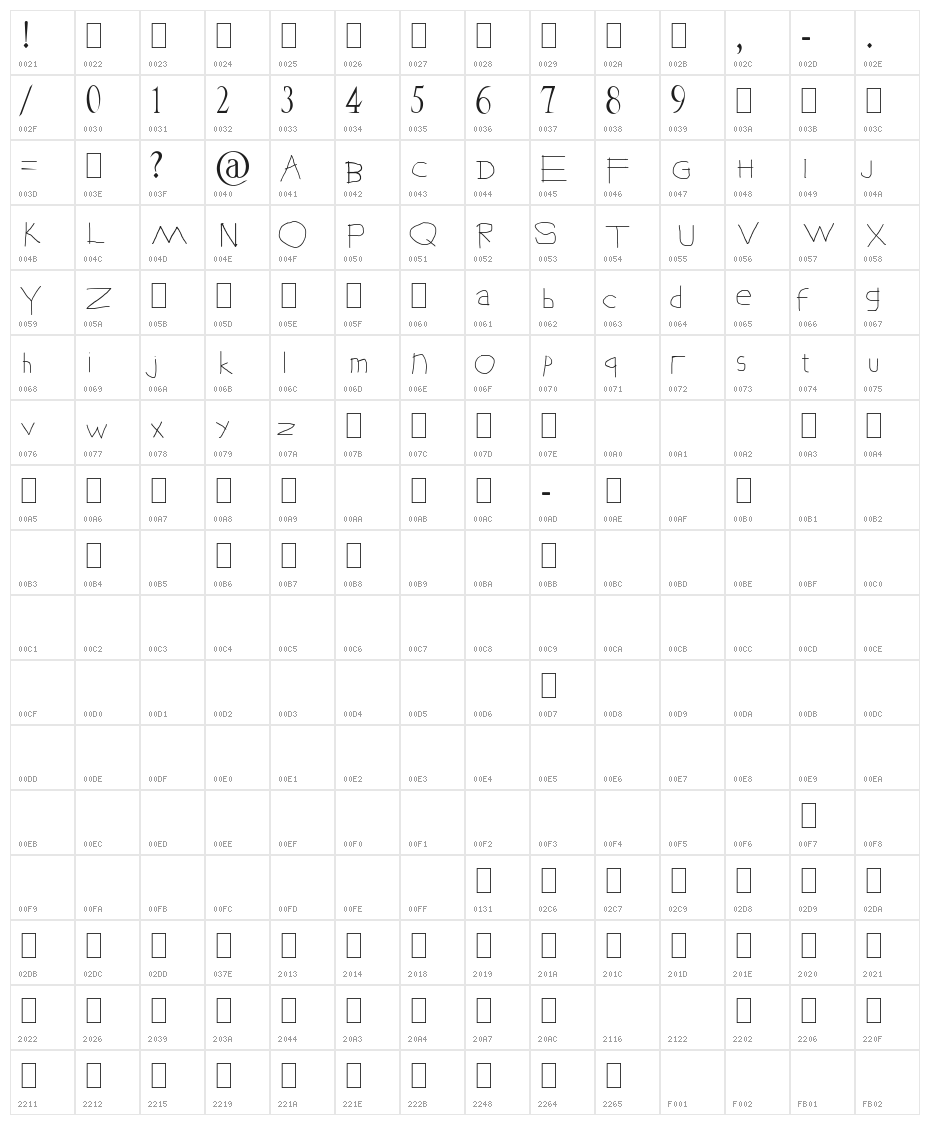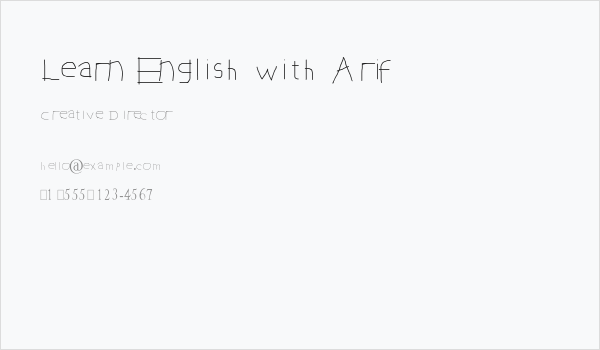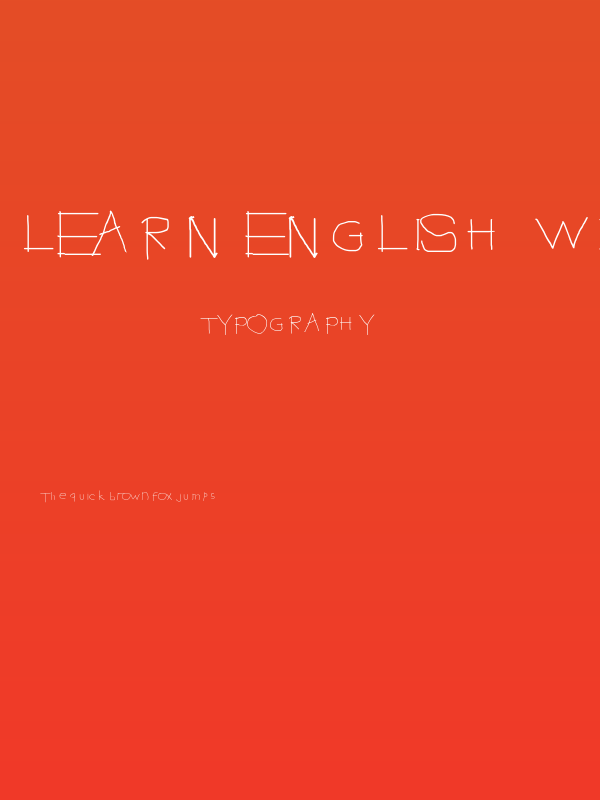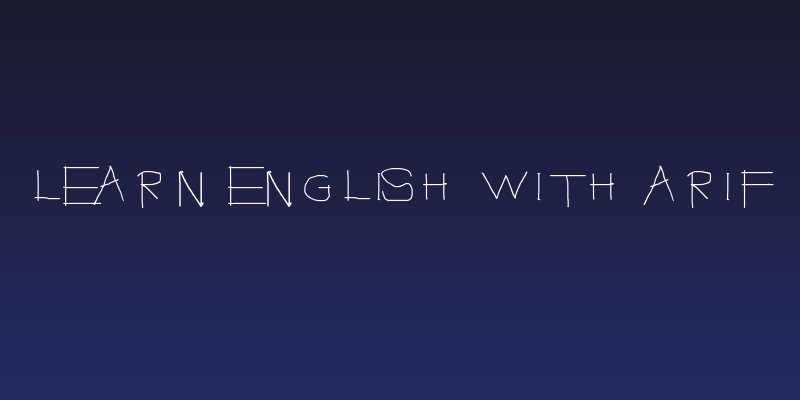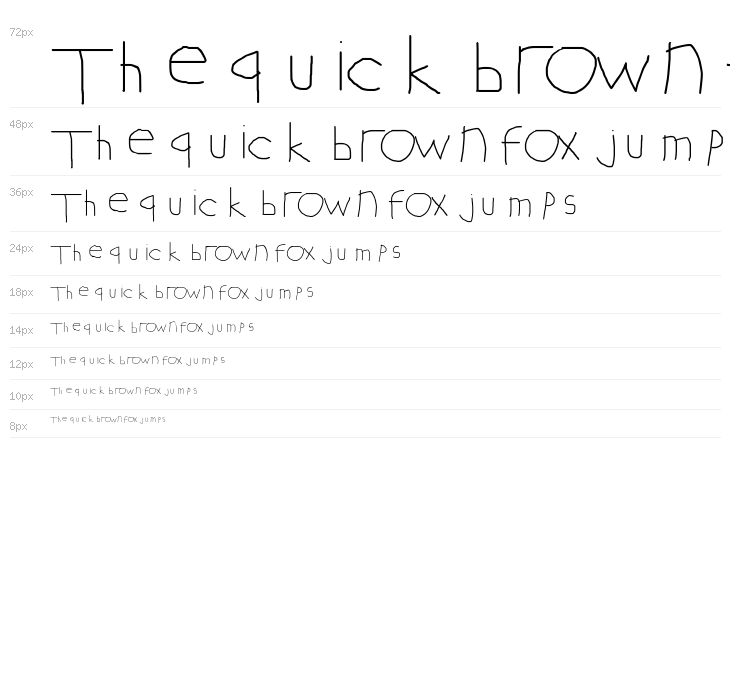
Learn English with Arif Font
Learn English with Arif Description
This font features a unique, hand-drawn style with irregular, thin strokes that give it a whimsical and artistic appearance. The uppercase letters are tall and narrow, with some characters like 'E' and 'F' having distinctive crossbars. The lowercase letters maintain a similar style, with playful curves and angles. The numerals are more structured, providing a contrast to the freeform letters. Special characters are included, adding versatility to the font. Overall, this font exudes a casual and creative vibe, making it suitable for projects that require a personal touch.
| Overall Style | Artistic |
| Use Case | Headlines, Artistic projects |
| Proposed Projects | Ideal for creative projects such as children's books, artistic posters, personal blogs, and casual invitations. |